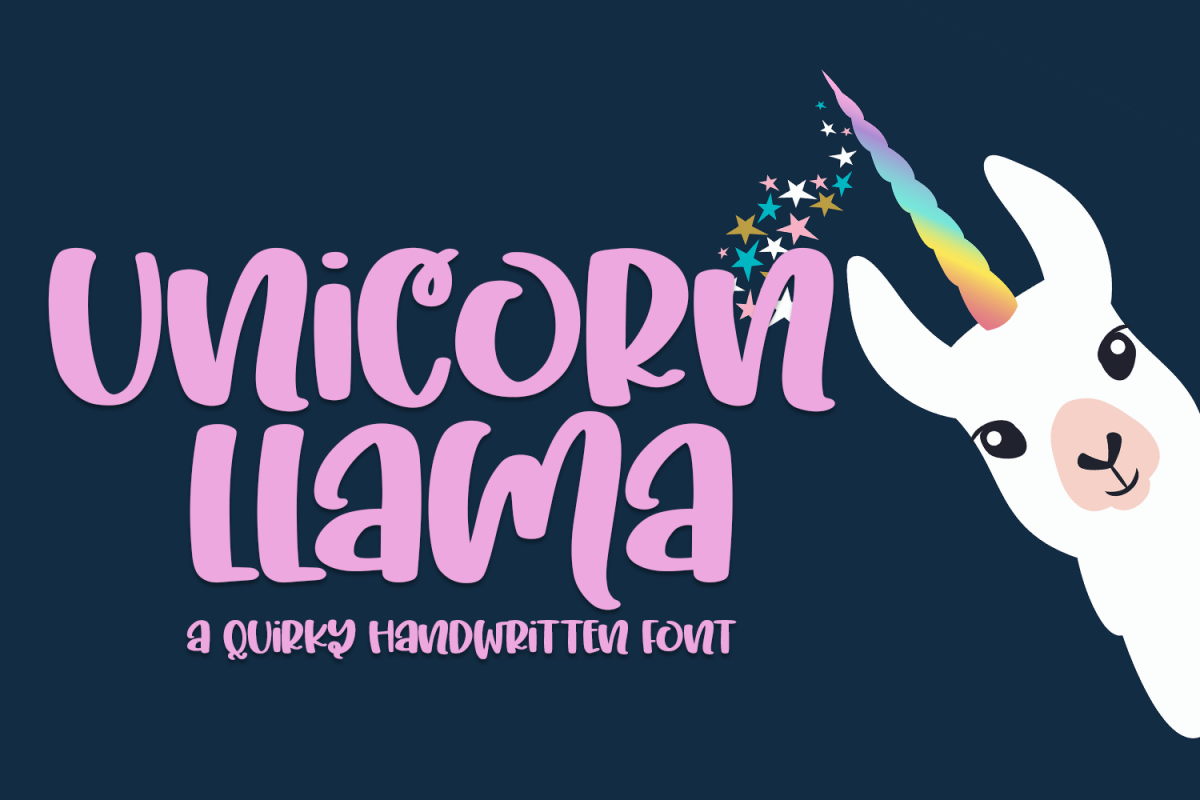
Unicorn Llama - A Quirky Hand-Written Font
Unicorn Llama is a quirky hand-lettered font, made specifically for crafters with clean lines and minimal nodes.